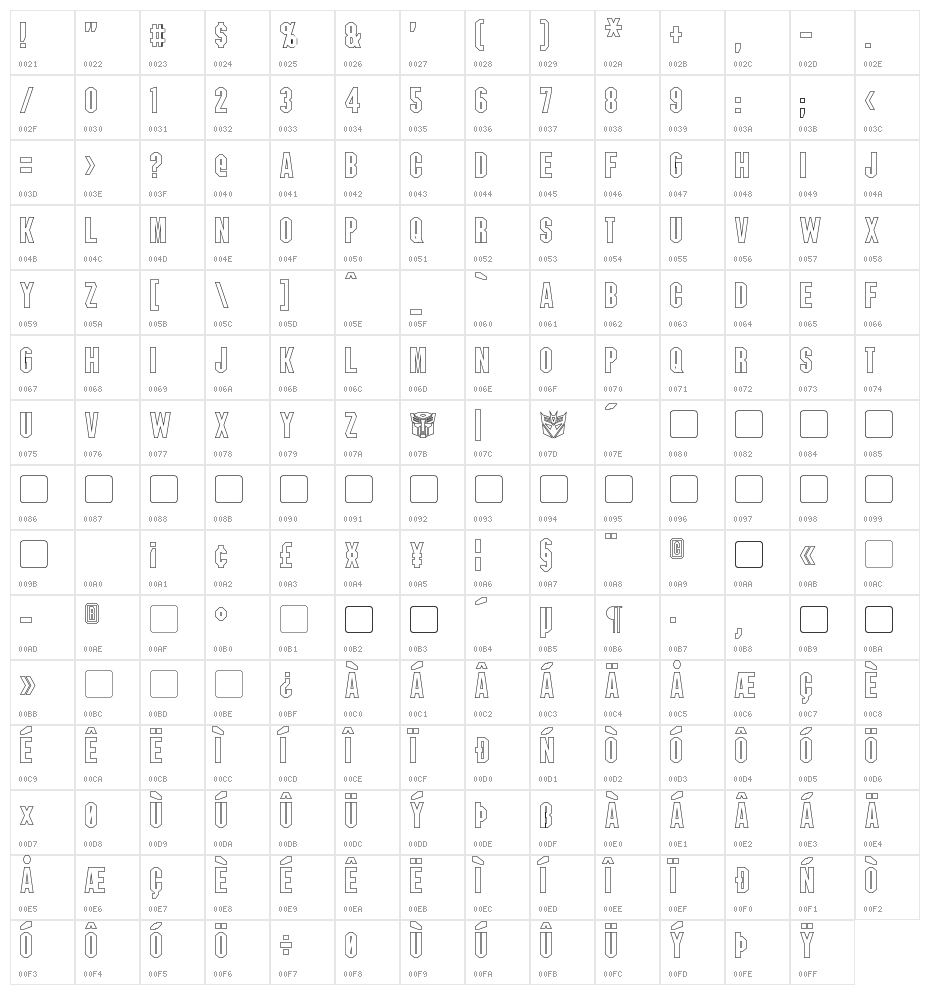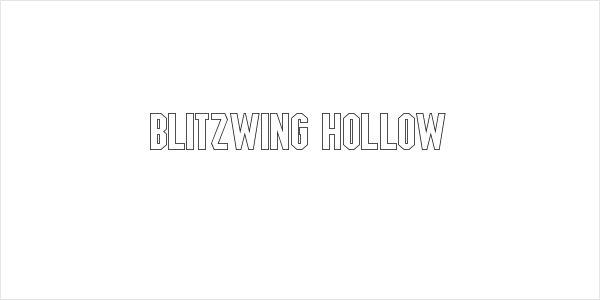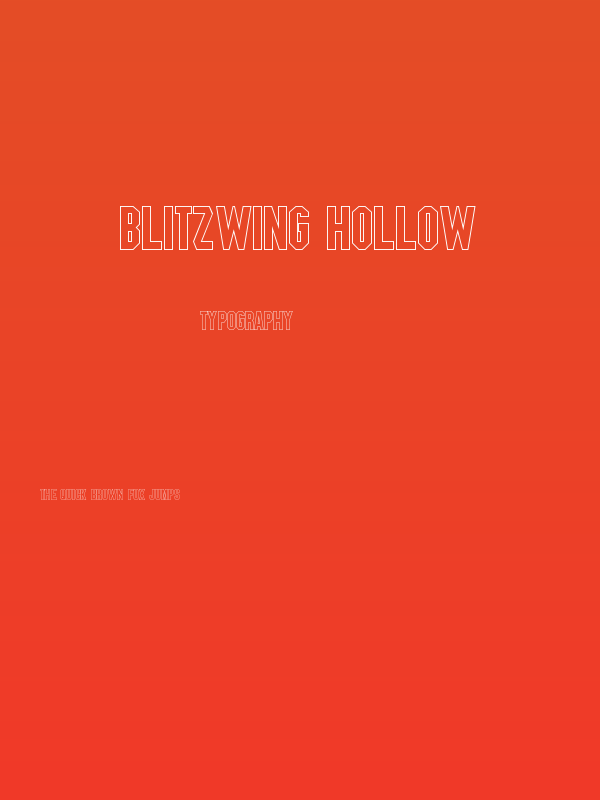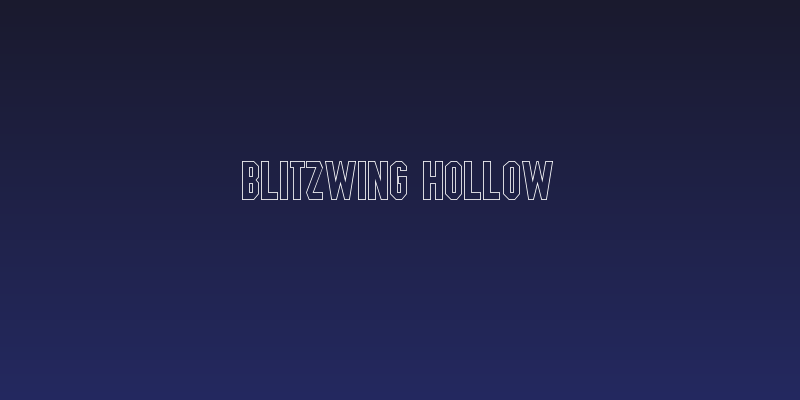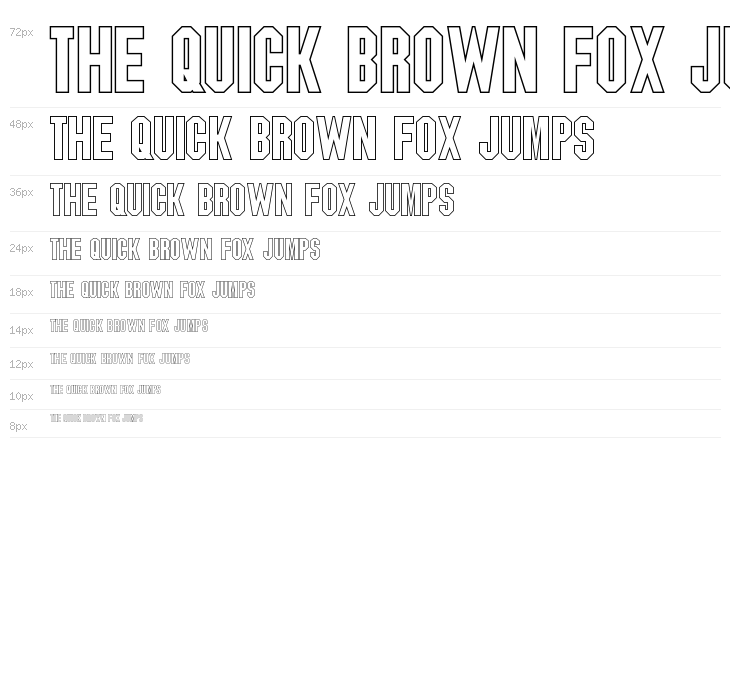
Blitzwing Hollow Font
Blitzwing Hollow Description
This font features a bold, geometric design with a hollow interior, creating a striking and modern appearance. The characters are uppercase and numerals, with a consistent line thickness that emphasizes their angular, structured form. The font's outline style gives it a unique, eye-catching look, making it suitable for attention-grabbing headlines and titles. Its clean lines and sharp edges convey a sense of precision and strength, while the hollow aspect adds a layer of depth and dimension.
| Proposed Projects | Ideal for posters, logos, branding, and any design requiring a modern, impactful typeface. |